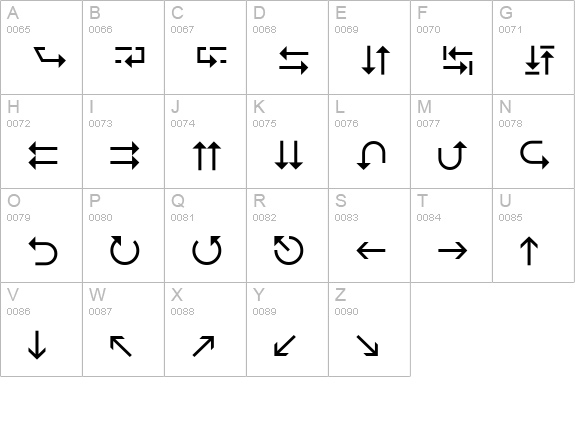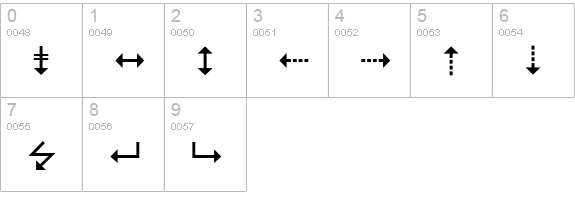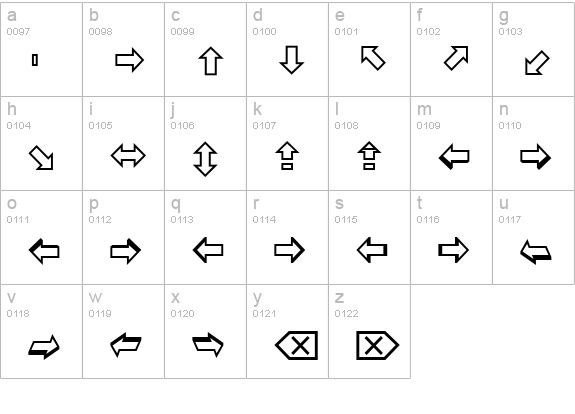
Cindy Arrows Font Details
Cindy Arrows font is a whimsical and playful typeface that adds a touch of charm to any design project. With its unique arrow-themed glyphs and elegant curves, this font is perfect for creating eye-catching headlines, branding materials, and invitations. The free-spirited nature of Cindy Arrows font makes it a versatile choice for both digital and print designs, adding a fun and stylish element to your work. Best of all, Cindy Arrows font is available for free download at FontsMarket.com, making it easily accessible for designers and creatives looking to add a touch of personality to their projects. Don't miss out on the opportunity to enhance your designs with this delightful and free font today!